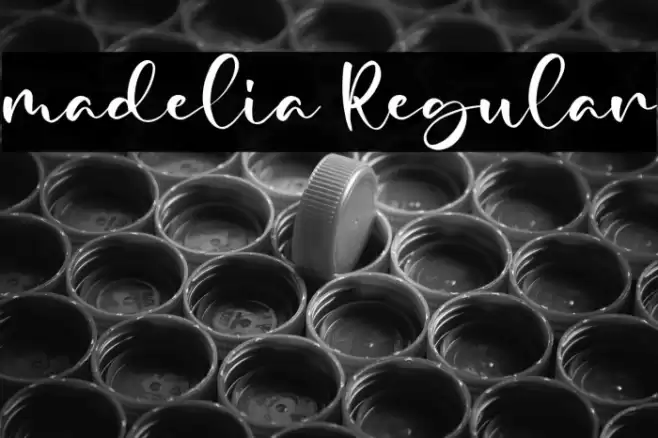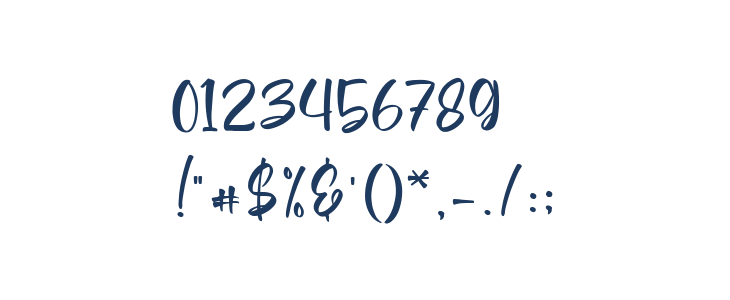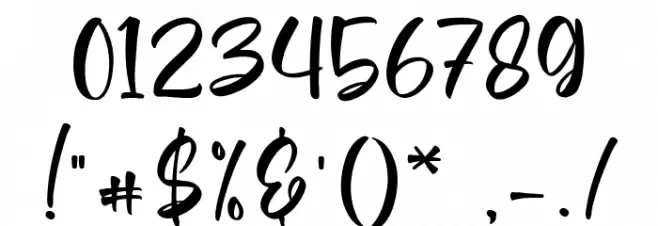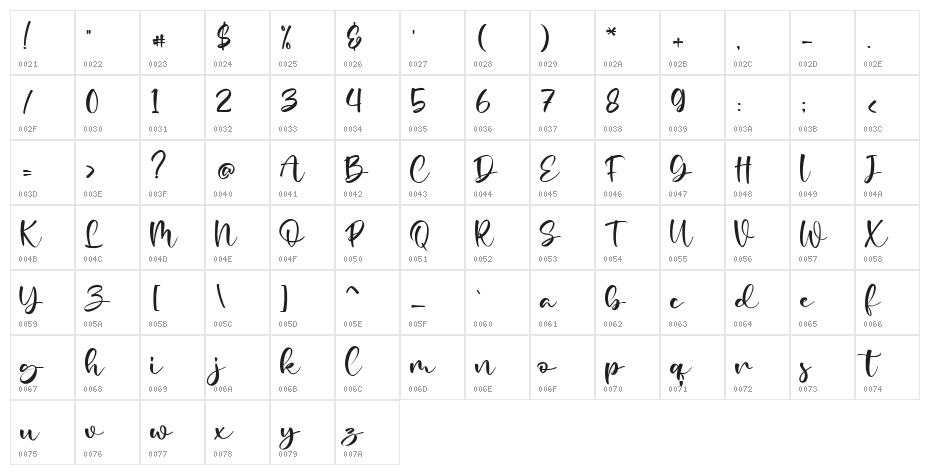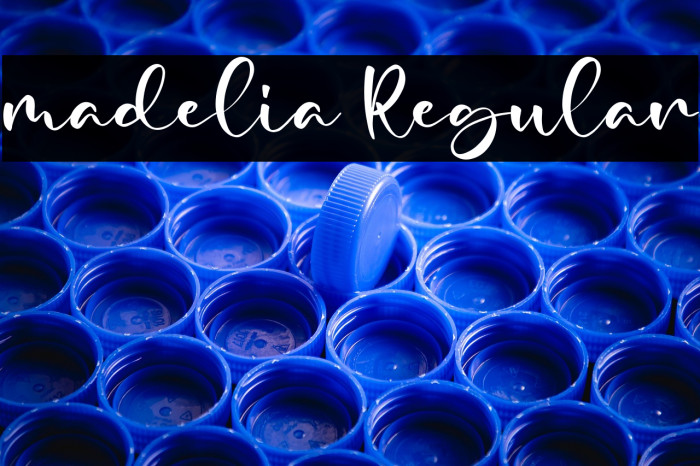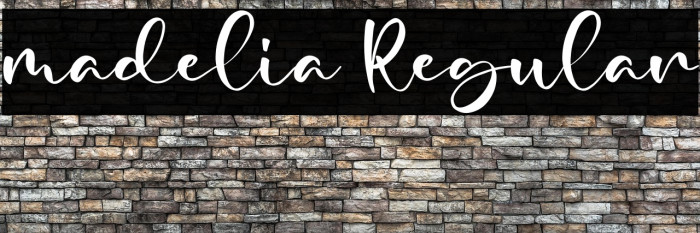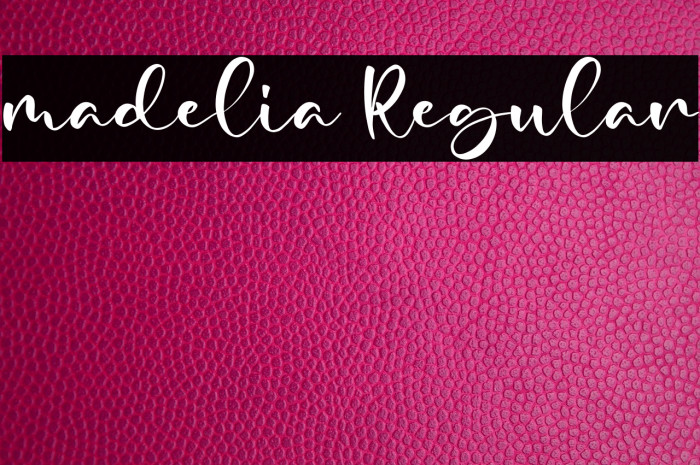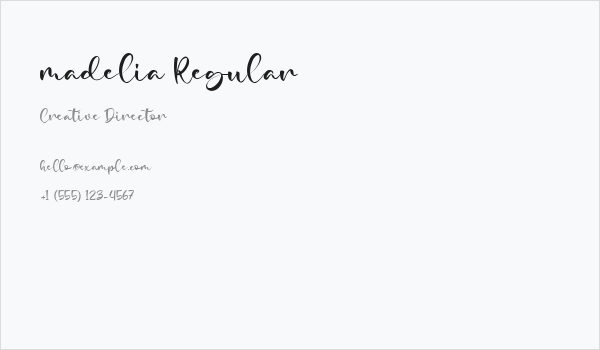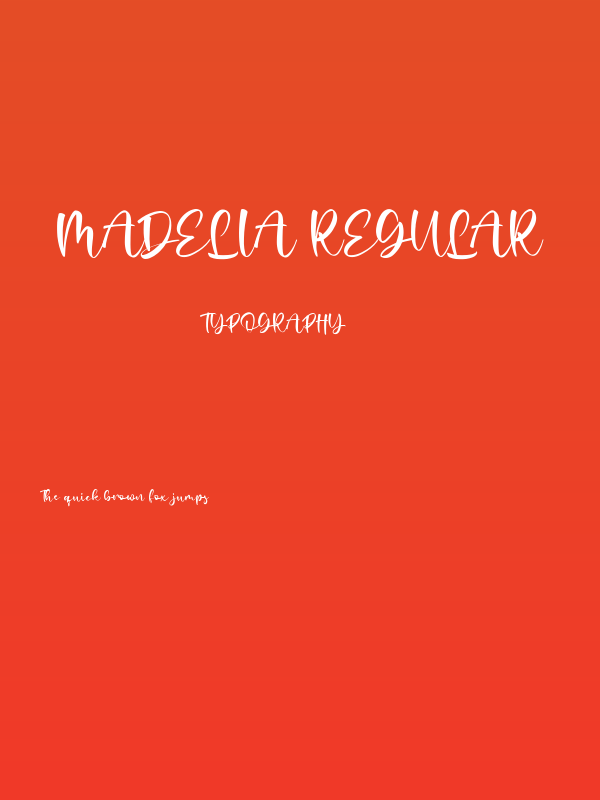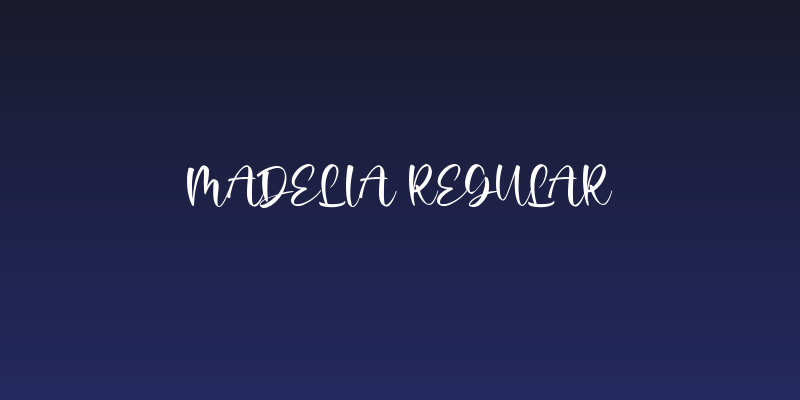
madelia Regular Font
madelia Regular Description
This font exudes a playful and elegant script style, characterized by its fluid and connected letterforms. The uppercase letters are bold and expressive, with a slight slant that adds a dynamic feel. The lowercase letters maintain a consistent flow, enhancing readability while retaining an artistic flair. The numerals are well-balanced, matching the overall aesthetic of the alphabet. Special characters are thoughtfully designed, integrating seamlessly with the rest of the font. This typeface is perfect for projects that require a personal touch, such as invitations, greeting cards, or branding materials. Its unique style makes it stand out, while still being versatile enough for various applications.
A playful and elegant script font with fluid, connected letterforms from Regular fonts.
- Proposed Projects: Ideal for invitations, greeting cards, branding, and any project needing a personal touch.
- Use Case: Logos, Headlines, Invitations